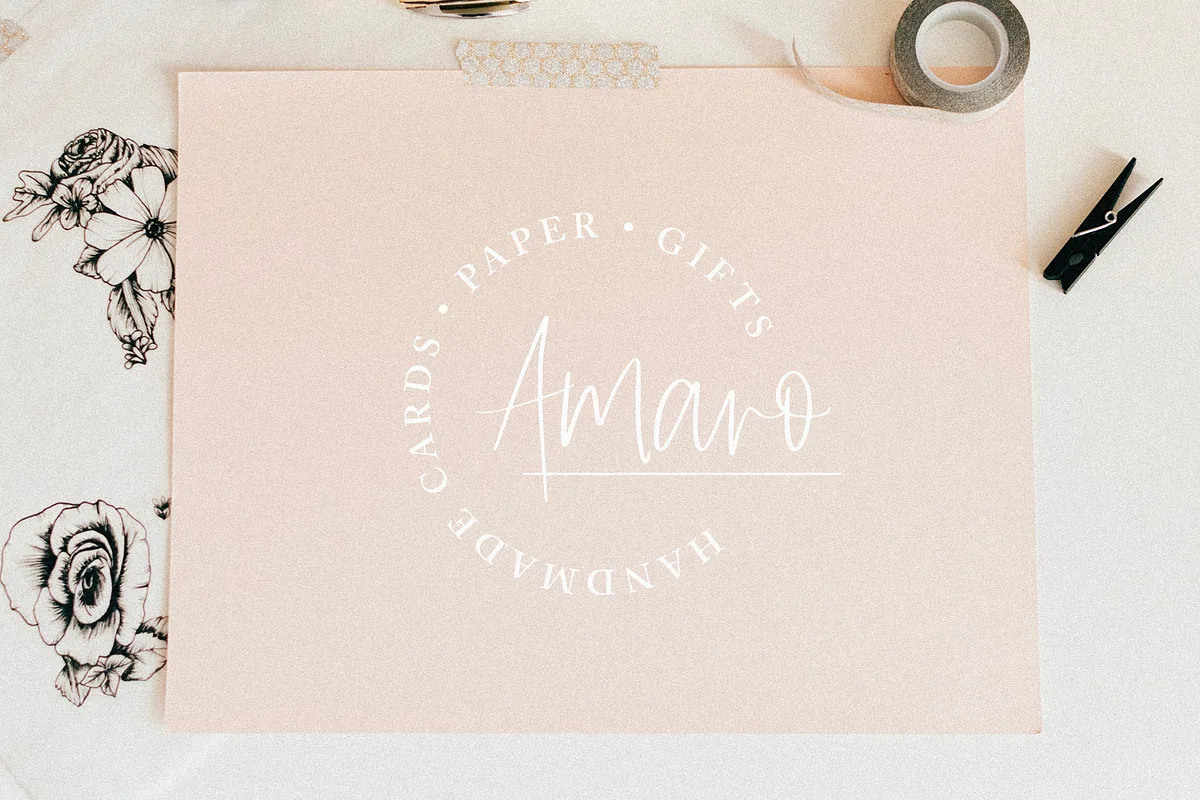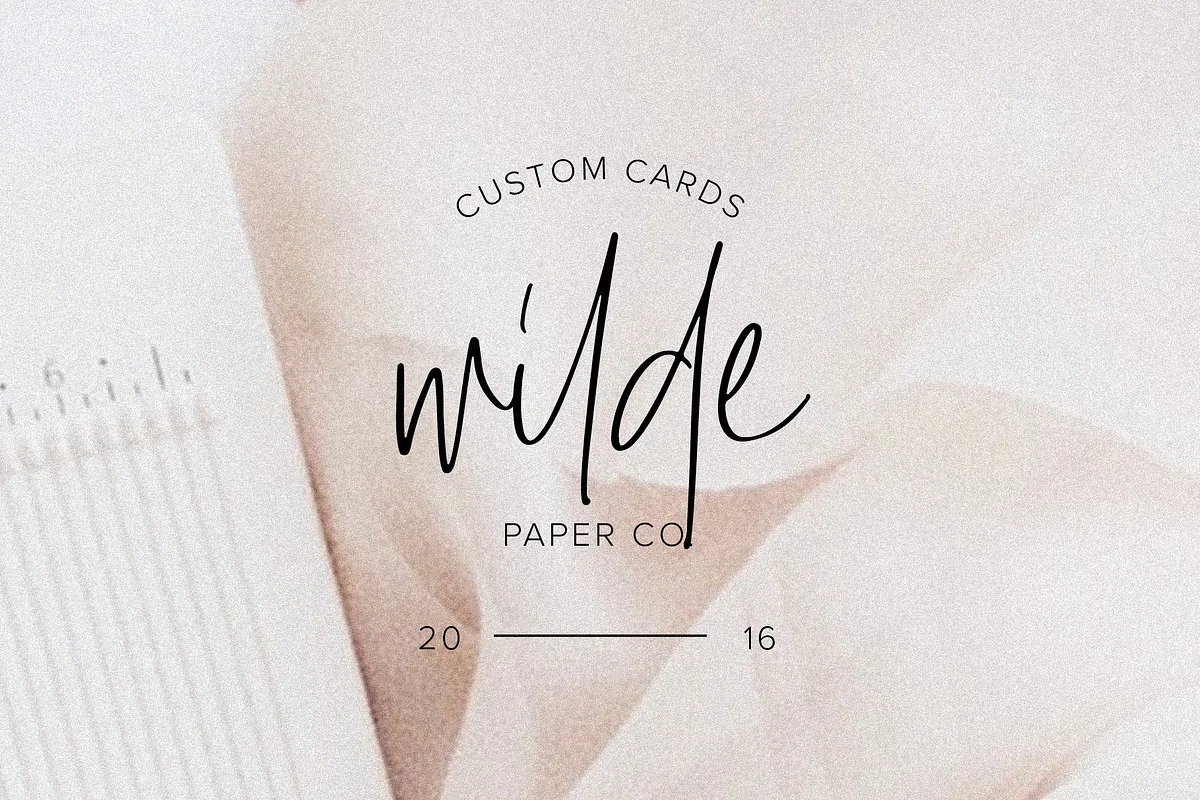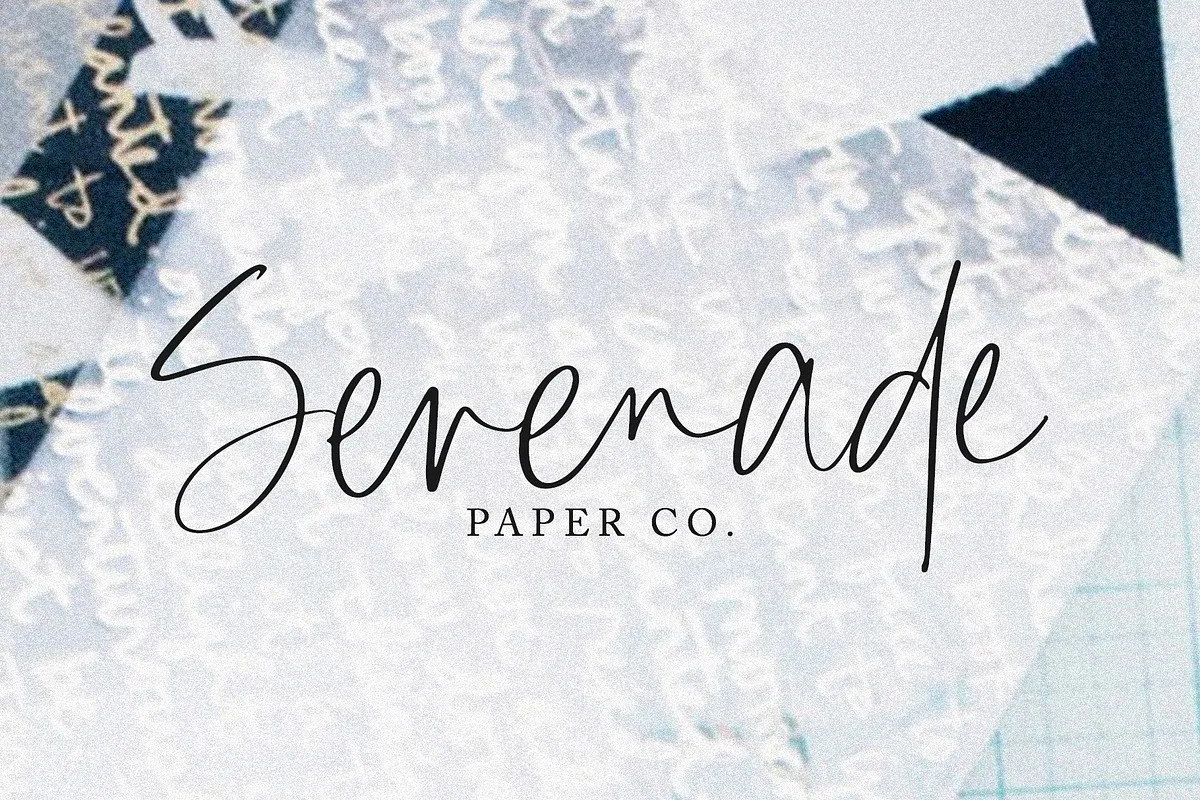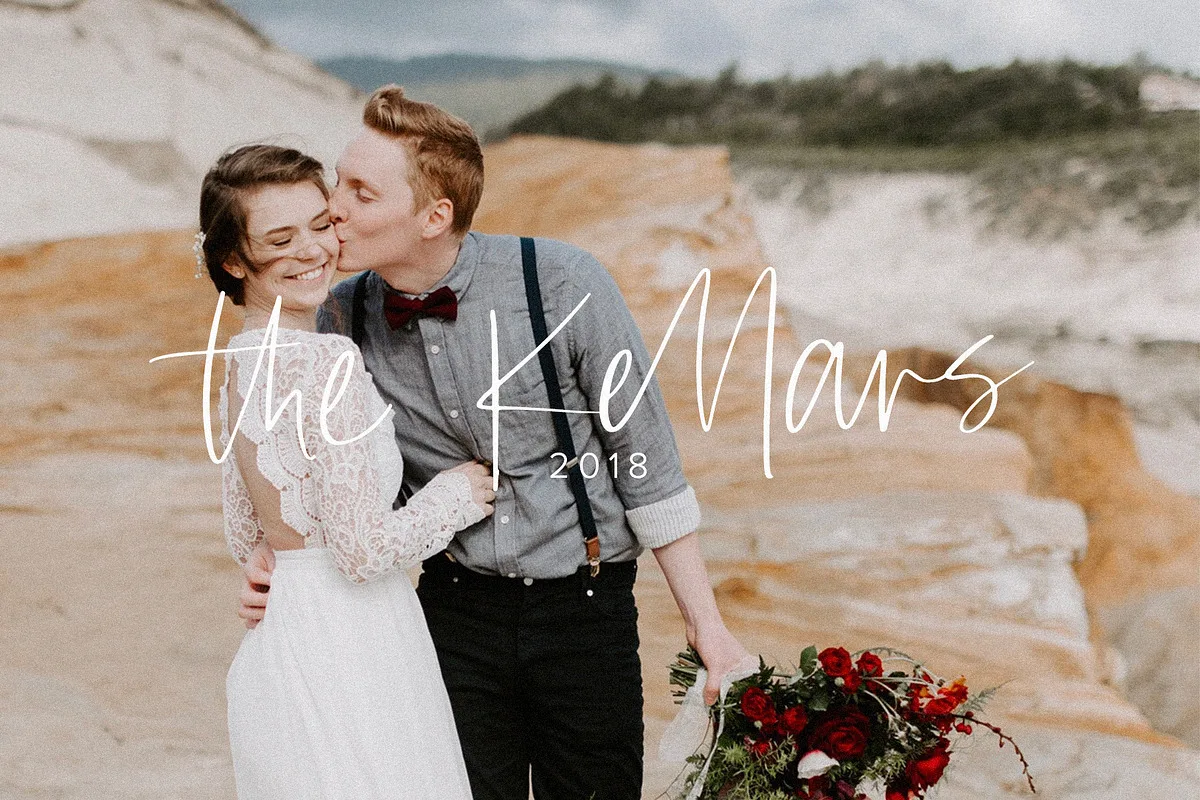
Amaro (formerly Amalfi) is a messy, feminine, carefree script that is perfect for logos, posters, signage, and more! Because of how much I love using this font for logos, I’ve included all of the 6 logo templates you see in action in the samples in Illustrator, Photoshop, and .eps formats. Comes with 79 ligatures for a totally unique hand-written feel!
Best for:
- Logos
- Branding
- Large format writing
- Feminine look + feel
- Paired with sans serifs
- Web headers
- Signage
- Wedding invitations and decor (table numbers, signage, balloons, etc.)
- Upper + Lowercase Letters w/ alternates
- Non-English support
- 79 Ligatures